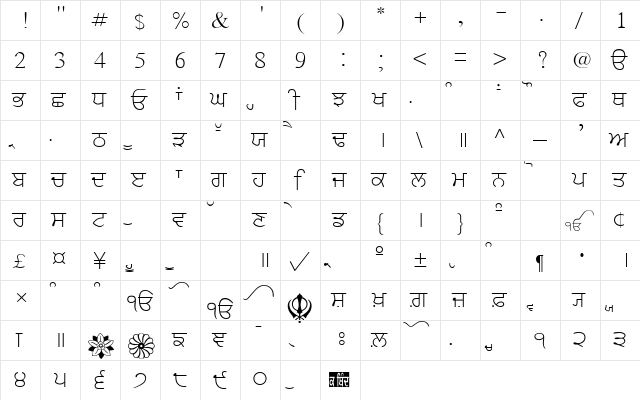
SamtolSlim Regular
Design Context for SamtolSlim Typeface
SamtolSlim takes a measured approach to typography — its balanced proportions and neutral character make it a reliable workhorse for both digital and print work.